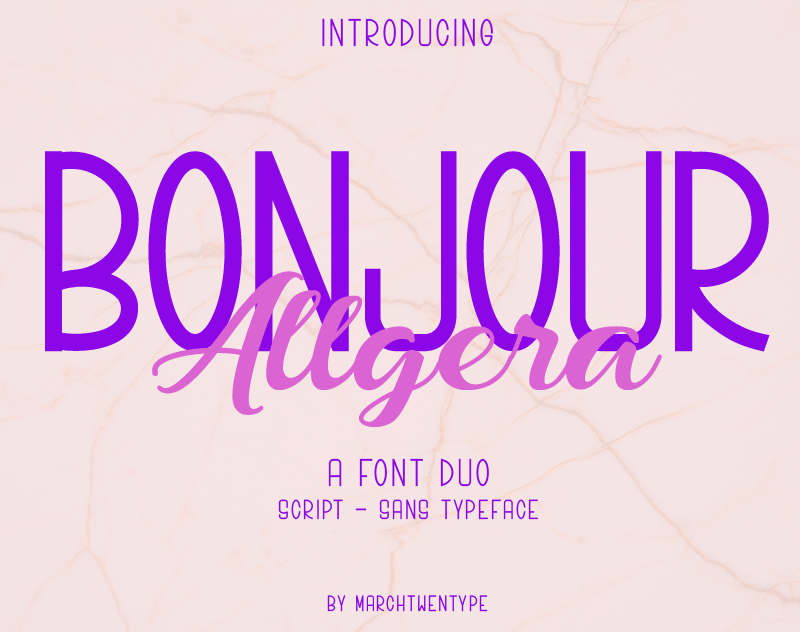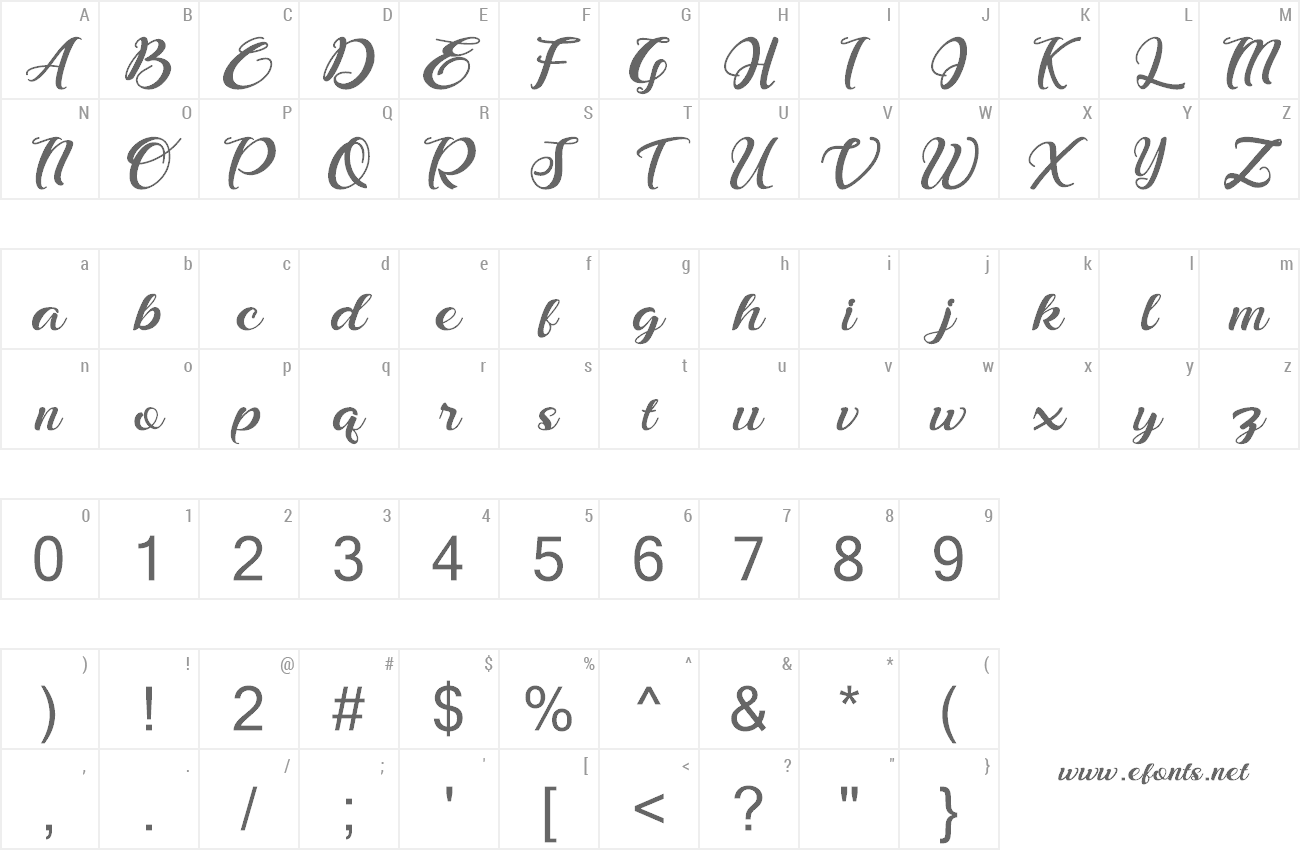
Introducing Bonjour Allgera - Font Duo Bonjour Allgera is a beautiful script and sans serif font duo. It�s calligraphy style and simple san serif gives it an elegant feel which can be used for every design which needs a striking, yet luxurious typeface. NOTE: This demo font is for PERSONAL USE ONLY! But any donation are very appreciated. Paypal donation to http://paypal.me/ENurca Link to purchase full version and commercial use license: https://thehungryjpeg.com/product/3514513-bonjour-allgera-font-duo/ https://www.creativefabrica.com/product/bonjour-allgera-duo If you have any question please do not hesitate to contact me at marchtwentype@gmail.com Have a nice day and Happy Creating! |